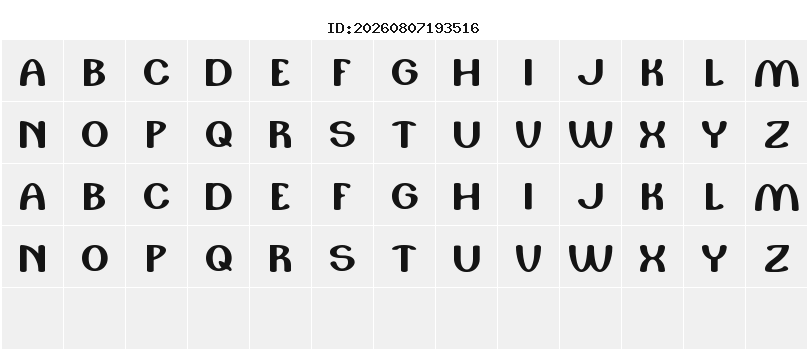
play the game Preview
• Font Name: play the game
• Font ID: play the game:Version 1.00
• Full Font Name: play the game
• Version: Version 1.00 September 25, 2013, initial release
• PostScript Name: playthegame
About play the game.ttf
play the game.ttf is a modern, elegant sans-serif font designed for ultimate readability and visual harmony. Perfect for branding, headlines, web design, and print materials.